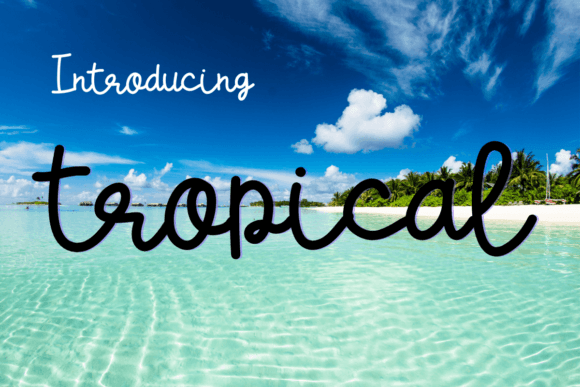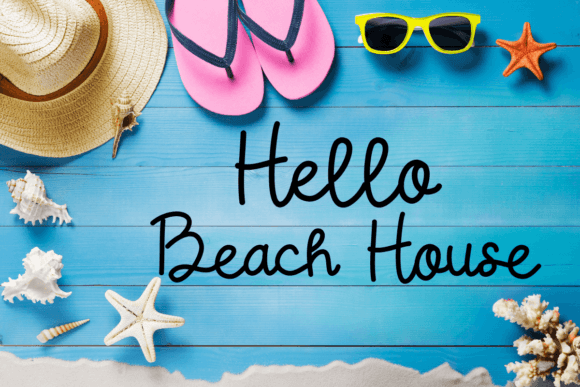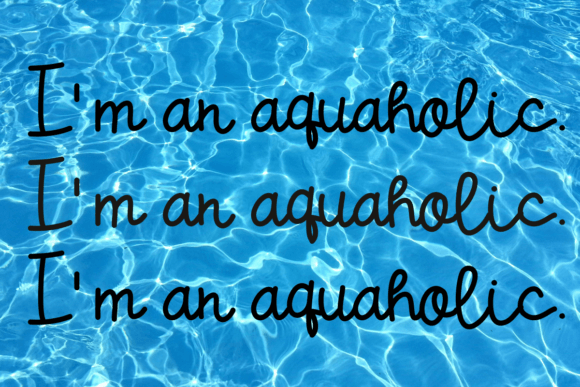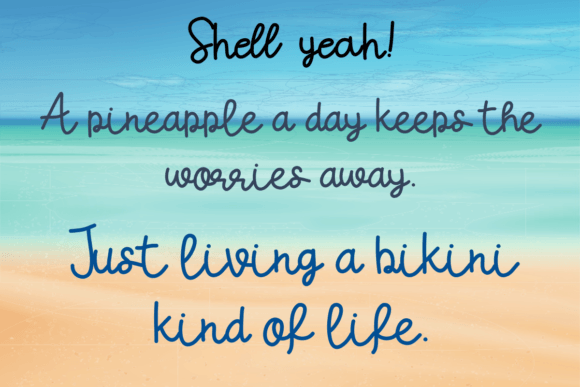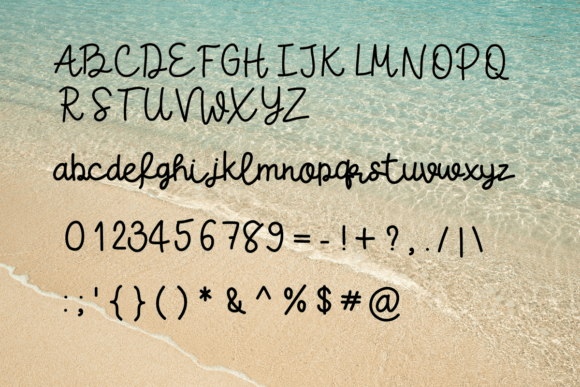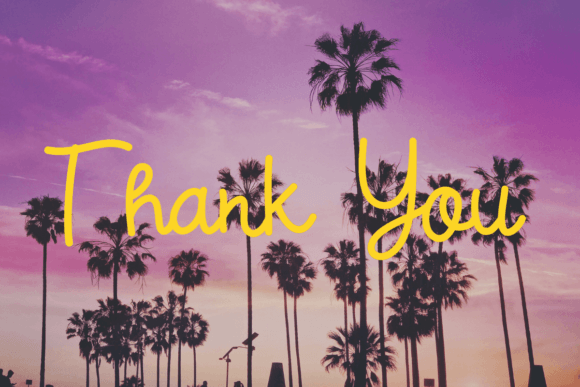
Tropical Font
About Tropical Font
Tropical is a playful and casual script font that radiates a friendly and carefree vibe. Its relaxed and natural style makes it an ideal choice for a variety of creative projects, especially those associated with summer and fun. Whether you’re working on summer-themed designs, party invitations, posters, blogs, social media posts, or any project that requires an informal and approachable character, Tropical adds a touch of playfulness and joy to your creations.
One of the standout features of Tropical is its ability to convey a sense of warmth and relaxation. The font’s playful demeanor captures the essence of summer, making it perfect for projects that aim to evoke a laid-back and cheerful atmosphere. Its friendly and natural accent adds a touch of authenticity, creating a genuine connection with your audience.
Tropical’s versatility allows it to adapt seamlessly to various design contexts. Its casual script style adds a touch of spontaneity and energy, making it suitable for projects that embrace creativity and individuality. Whether you’re designing vibrant party invitations, creating engaging social media content, or crafting colorful posters for summer events, Tropical enhances the overall visual appeal with its playful charm.
Incorporating Tropical into your projects not only adds a playful character but also communicates a sense of fun and excitement. Its informal and approachable nature makes it a popular choice among designers who want to infuse their creations with a sense of joy and positivity. By choosing Tropical, you’re selecting a font that effortlessly enhances your designs and creates a delightful visual experience for your audience.
So, whether you’re planning a summer-themed party, designing cheerful social media posts, creating lively blog content, or working on any other creative endeavor, let Tropical be your go-to font. Its playful and casual script style brings a sense of sunshine and happiness to your designs, making them memorable and inviting. Embrace the playful spirit of Tropical and watch your projects come to life with a touch of tropical warmth and carefree charm.